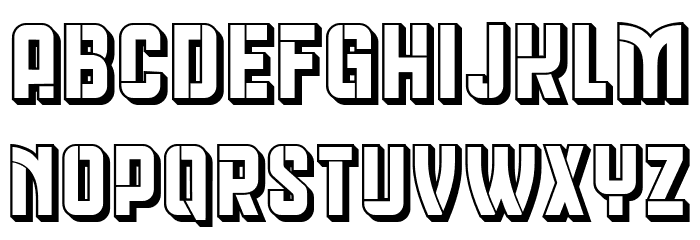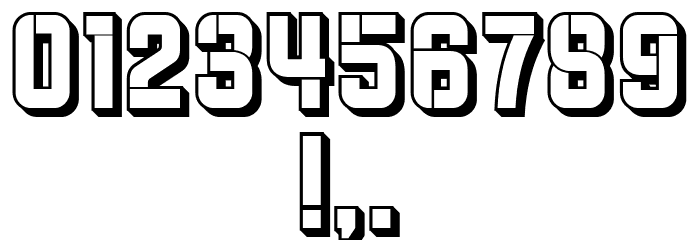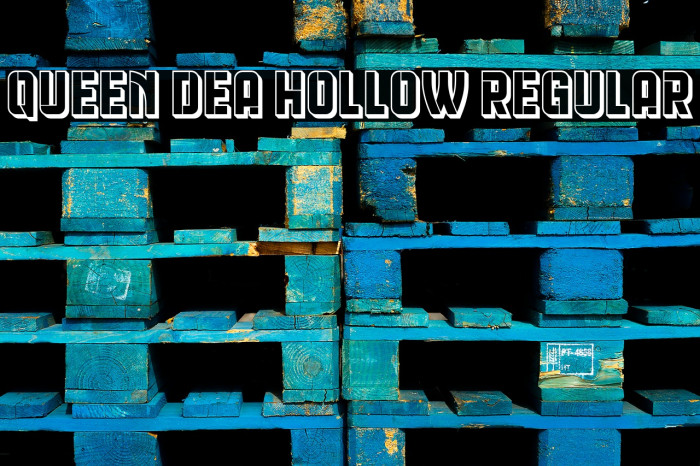
Queen Dea Hollow Regular Font
This font features a bold, hollow design with a three-dimensional effect, giving it a striking and modern appearance. The uppercase and lowercase letters are consistent in style, with clean lines and geometric shapes that create a sense of depth. The numbers and special characters maintain the same aesthetic, ensuring uniformity across all elements. The font's unique hollow design makes it stand out, ideal for projects that require a bold statement. Its structured form and shadow effect add a layer of sophistication and creativity, making it suitable for various design applications.
A bold, hollow font with a three-dimensional effect and geometric shapes.
- Proposed Projects: Ideal for posters, headlines, logos, and branding materials that require a bold and modern look.